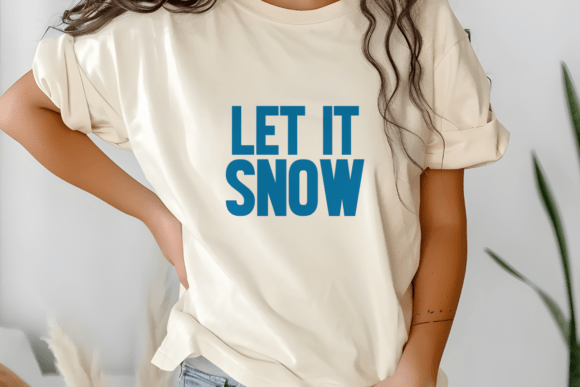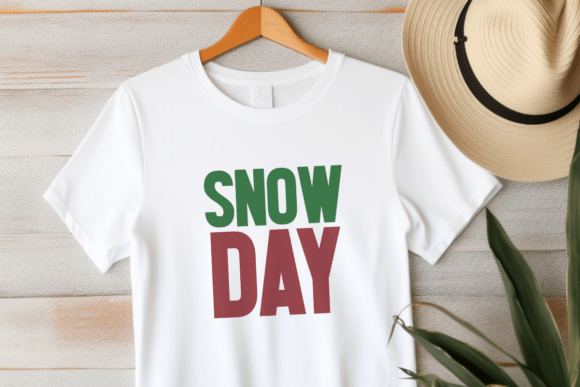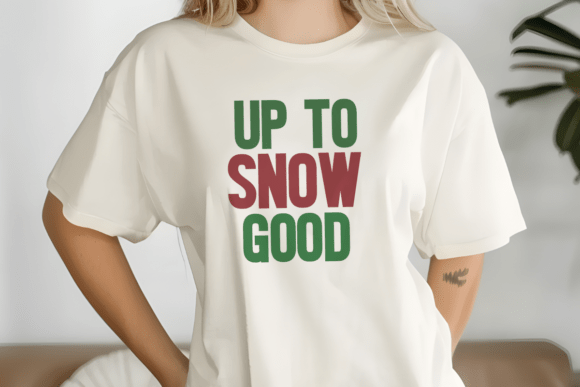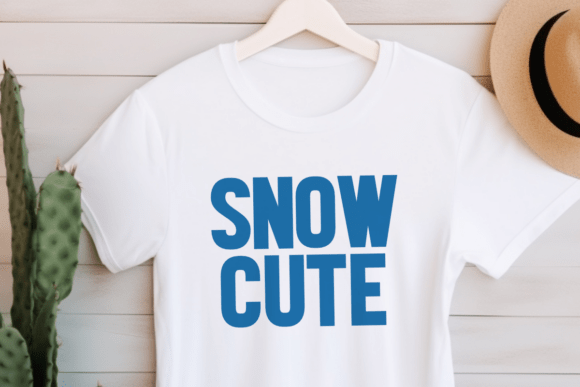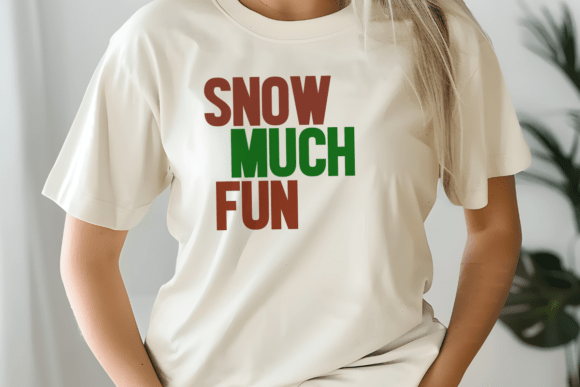
Introducing Funny Nurse Font: The Perfect Blend of Modern and Vintage Style
Are you a designer or crafter looking for a unique font to add a touch of personality to your projects? Look no further than Funny Nurse Font, a modern condensed sans serif font with a stunning vintage feel. This versatile font is perfect for a wide range of design applications, from logos and t-shirts to invitations, greeting cards, and more.
What Makes Funny Nurse Font So Special?
Funny Nurse Font is a one-of-a-kind font that combines the clean lines and simplicity of a modern sans serif font with the charm and character of a vintage typeface. Its condensed design makes it perfect for creating eye-catching headlines and titles, while its elegant simplicity ensures that it will work beautifully in a variety of design contexts.
Whether you’re a professional designer or a crafty DIY enthusiast, Funny Nurse Font is the perfect choice for a wide range of design projects. Here are just a few ideas to get you started:
- Logos: Create a memorable and eye-catching logo for your business or brand with Funny Nurse Font.
- T-shirts and apparel: Add a touch of personality to your t-shirts, hoodies, and other apparel with this fun and stylish font.
- Mugs and ceramics: Create personalized mugs, water bottles, and other ceramics with Funny Nurse Font.
- Invitations and greeting cards: Add a touch of elegance and sophistication to your invitations and greeting cards with this beautiful font.
- Branding and packaging: Use Funny Nurse Font to create eye-catching branding and packaging for your products.
- Posters and signs: Create eye-catching posters and signs with Funny Nurse Font.
- Cutting boards and printables: Add a touch of personality to your cutting boards, printables, and other craft projects with this fun and stylish font.
Why Choose Funny Nurse Font?
There are many reasons why Funny Nurse Font is the perfect choice for designers and crafters. Here are just a few:
- Unique and stylish: Funny Nurse Font is a one-of-a-kind font that will add a touch of personality to your designs.
- Versatile: This font is perfect for a wide range of design applications, from logos and t-shirts to invitations and greeting cards.
- Easy to read: Despite its condensed design, Funny Nurse Font is easy to read and will work beautifully in a variety of design contexts.
- Modern yet vintage: This font combines the best of both worlds, with a modern sans serif design and a vintage feel.
- Experiment with different sizes: Funny Nurse Font looks great in a variety of sizes, from small and delicate to large and bold.
- Play with color: This font works beautifully in a variety of colors, from bright and bold to soft and pastel.
- Combine with other fonts: Funny Nurse Font pairs beautifully with other fonts, so don’t be afraid to experiment with different combinations.
If you’re looking for a unique and stylish font to add a touch of personality to your designs, look no further than Funny Nurse Font. With its modern condensed sans serif design and stunning vintage feel, this font is perfect for a wide range of design applications. Whether you’re a professional designer or a crafty DIY enthusiast, Funny Nurse Font is the perfect choice for your next project.